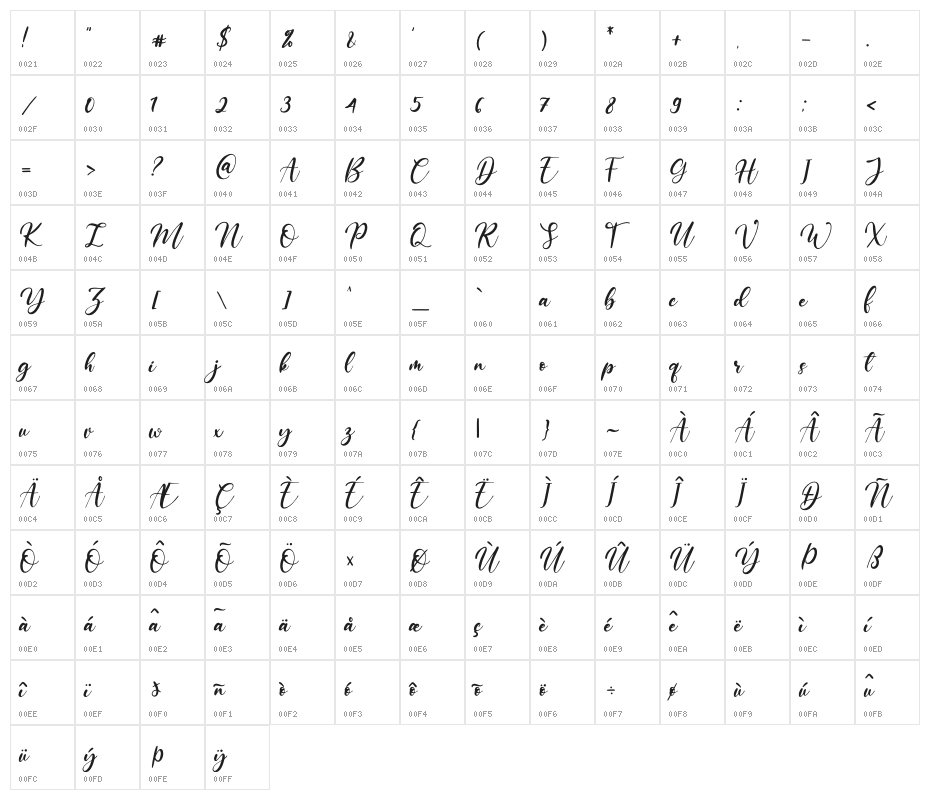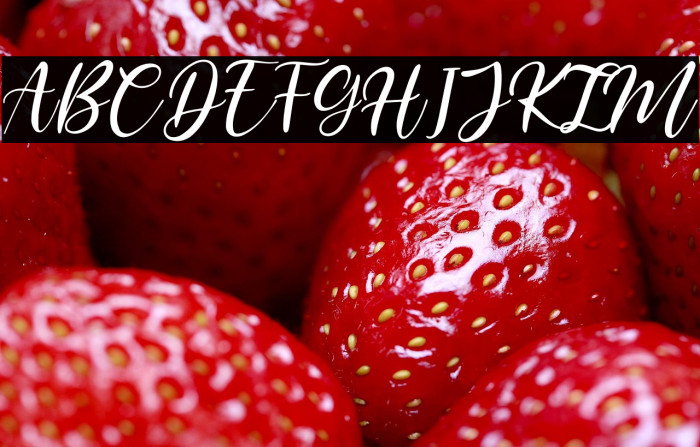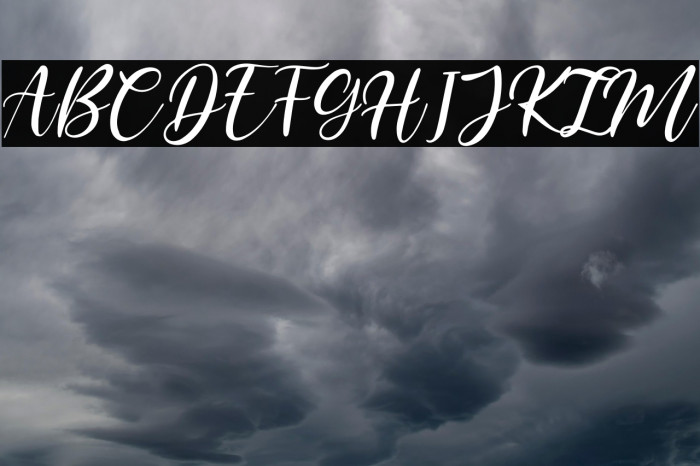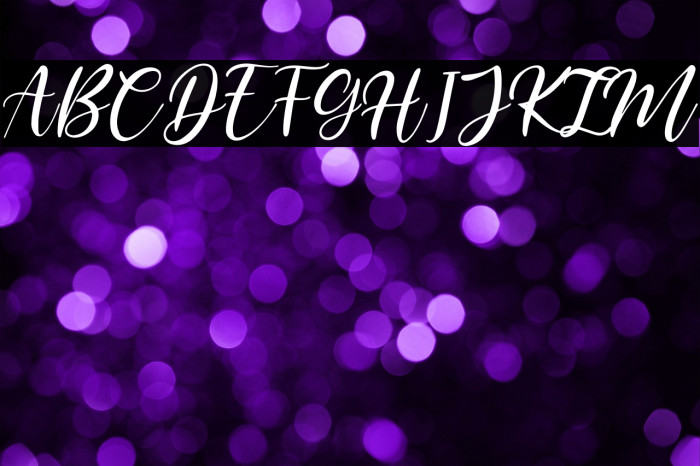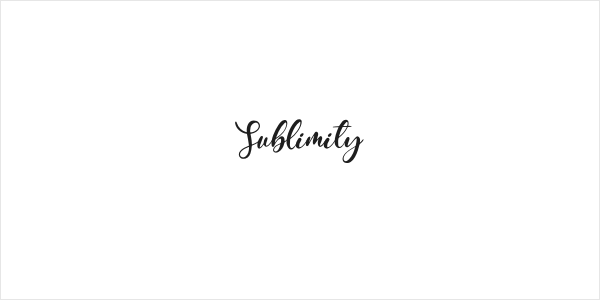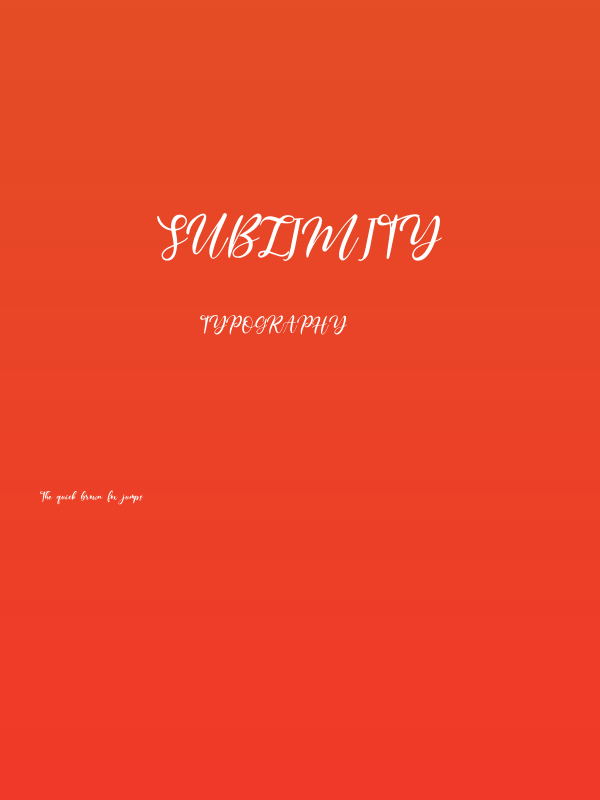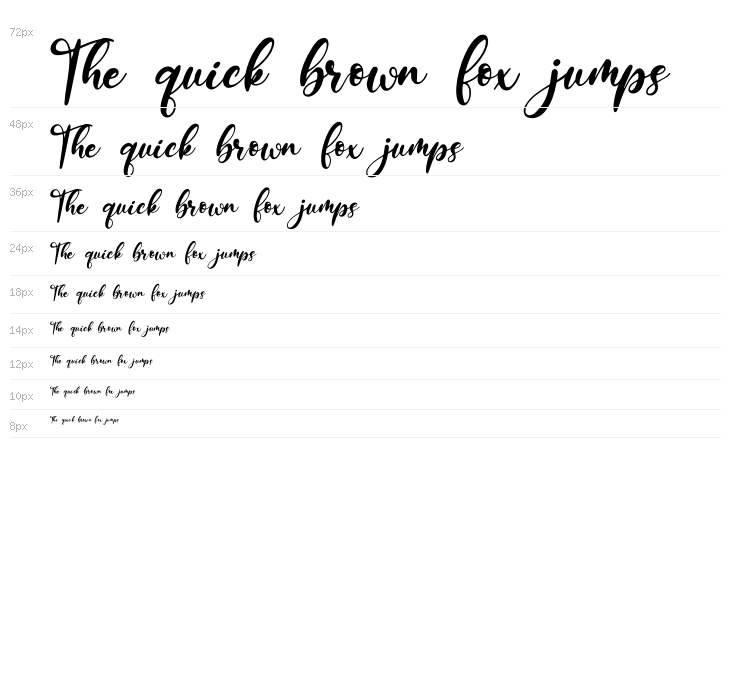
Sublimity Font
Sublimity Description
A flowing, elegant script font with a handwritten style, featuring smooth curves and a natural, fluid appearance.
| Use Case | Logos, Invitations |
| Proposed Projects | Invitations, greeting cards, branding, and logos. |